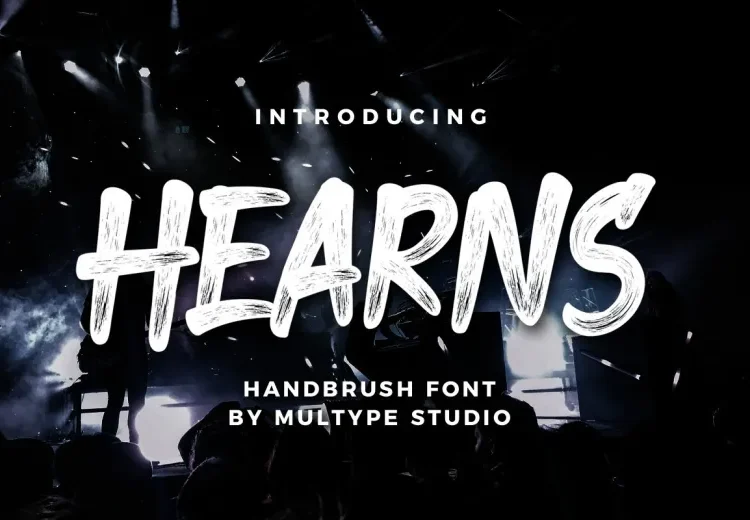
Hearns Font
Hearns is an original hand-painted font that features authentic textures, making it a standout choice for branding and logo designs, packaging, photography, and advertisements. Its unique style is perfect for social media posts, invitations, labels, stationery, and more, bringing a distinctive character and charm that’s hard to replicate with other fonts.
The authentic textures of Hearns add an extra layer of depth and personality, making it ideal for various applications, including books, magazines, wedding cards, greeting cards, and fashion-inspired projects. Whether used for marketing materials or personal designs, Hearns enhances visual appeal with its hand-crafted elegance.